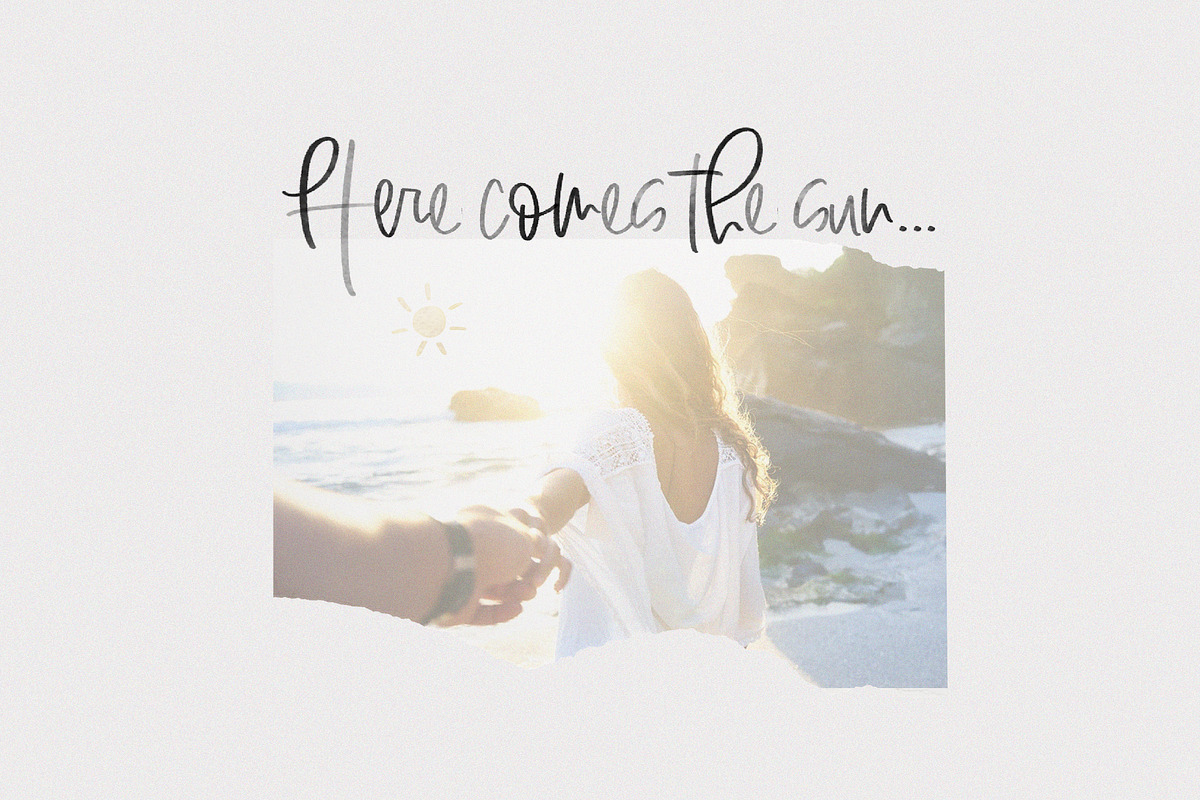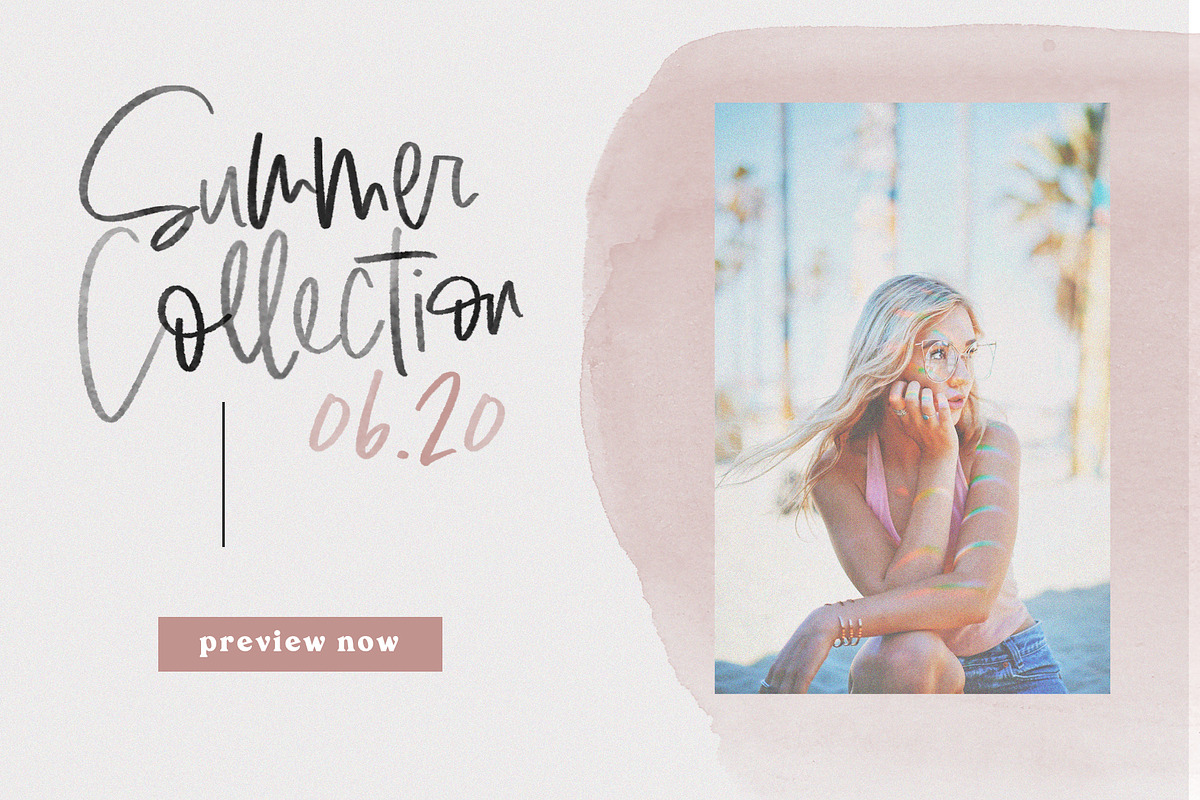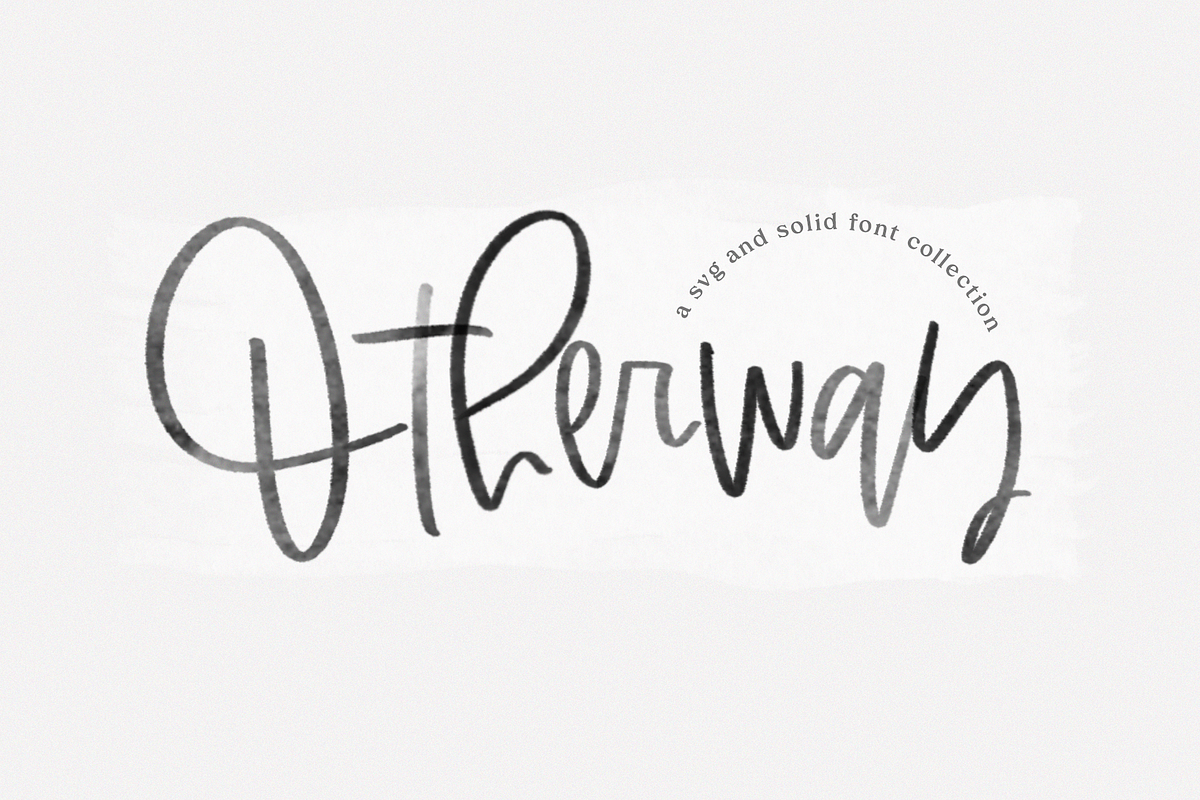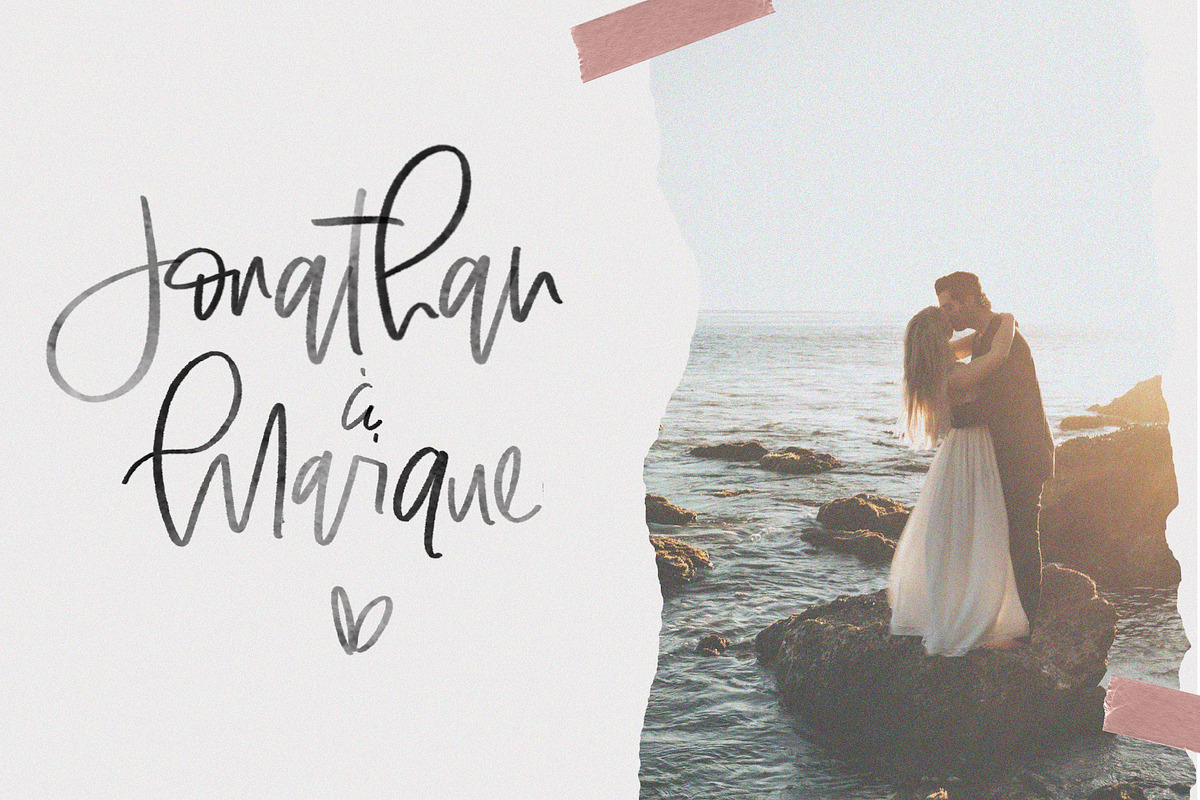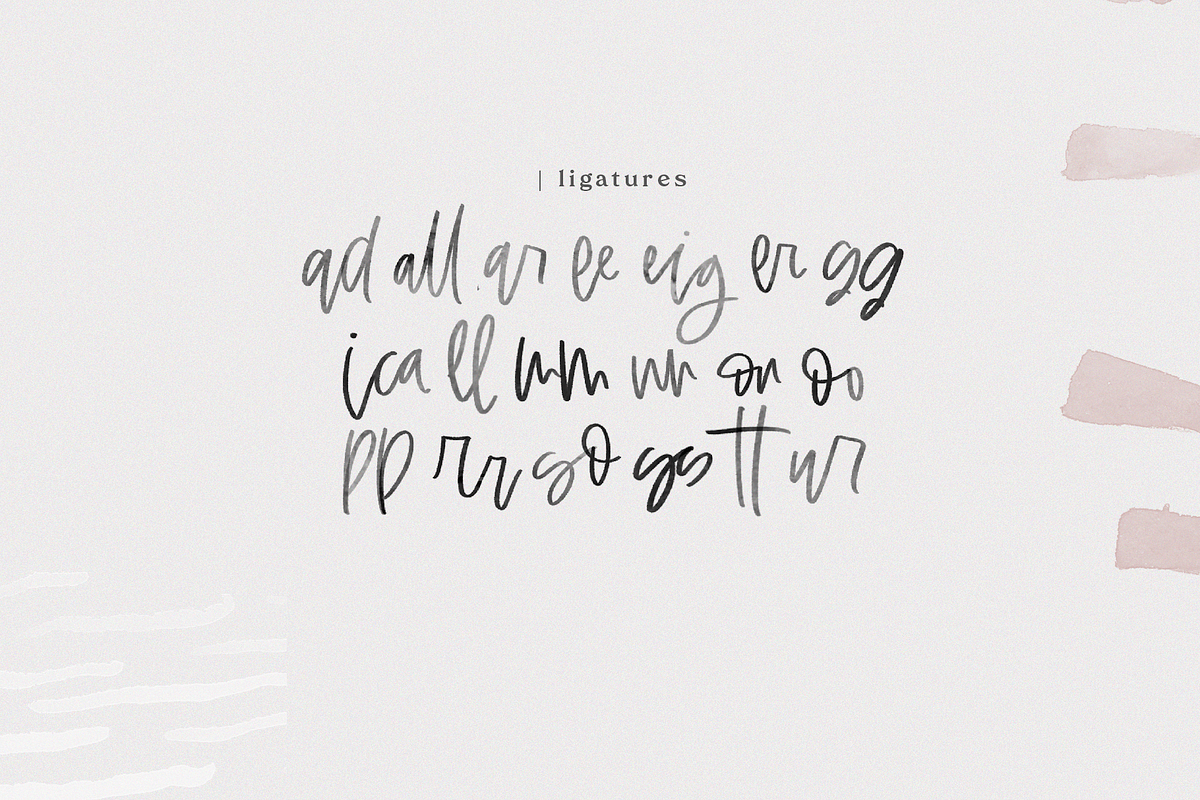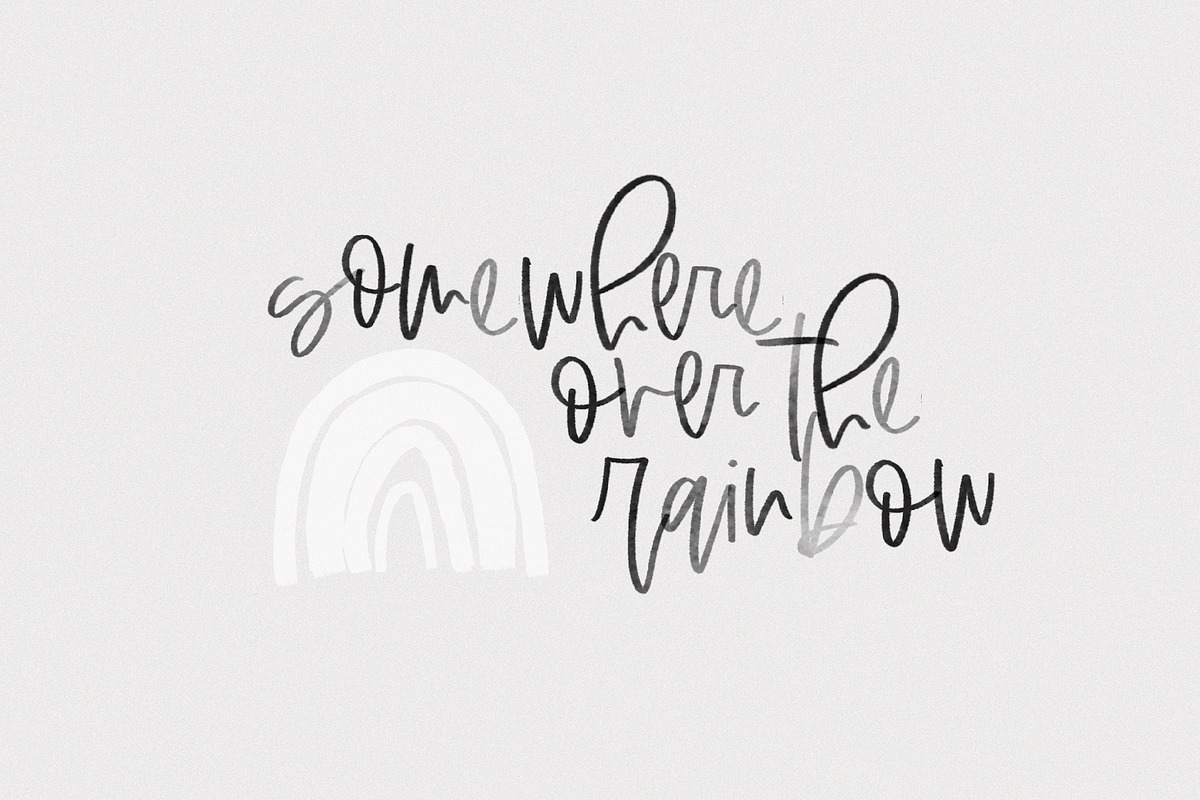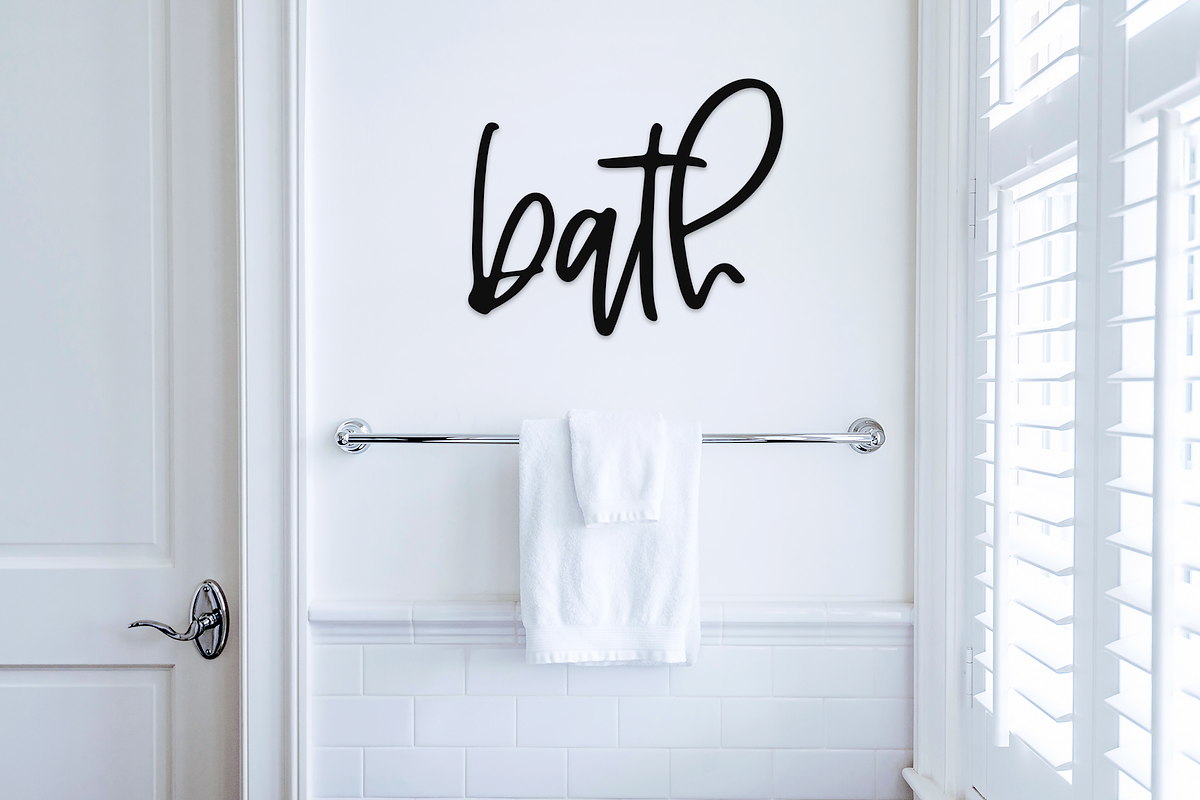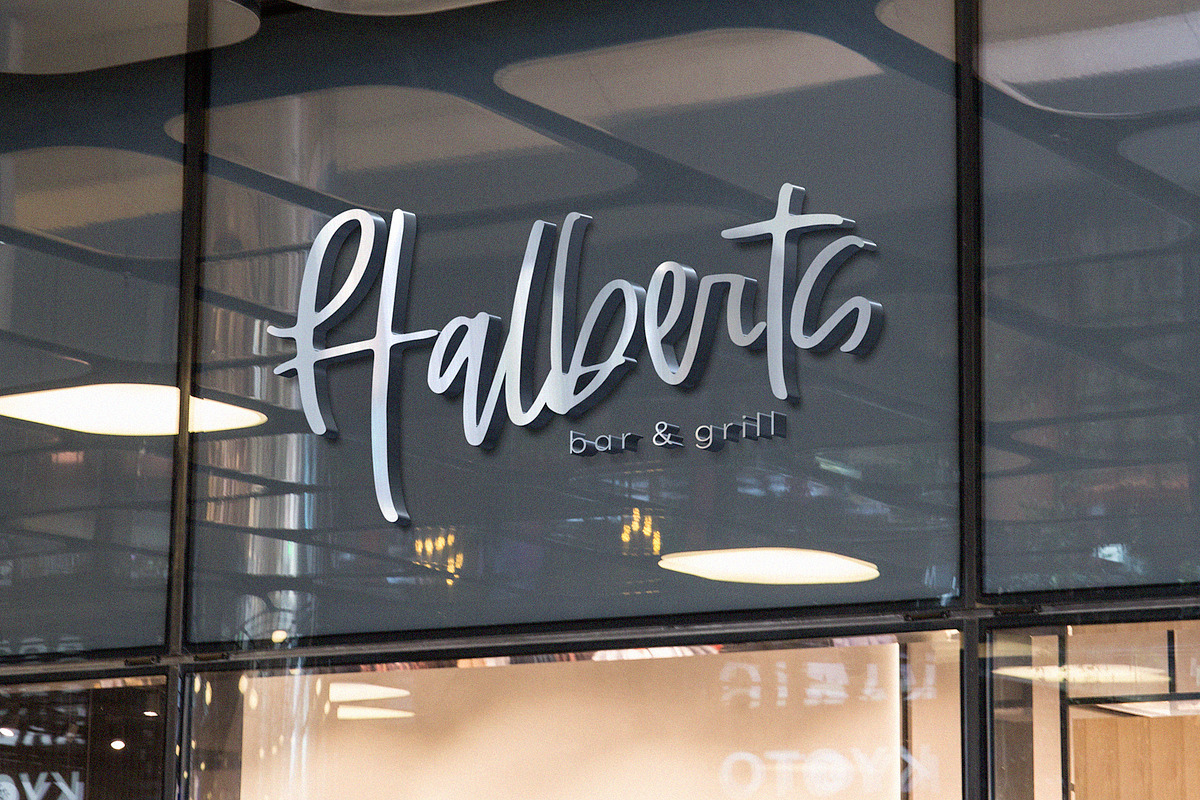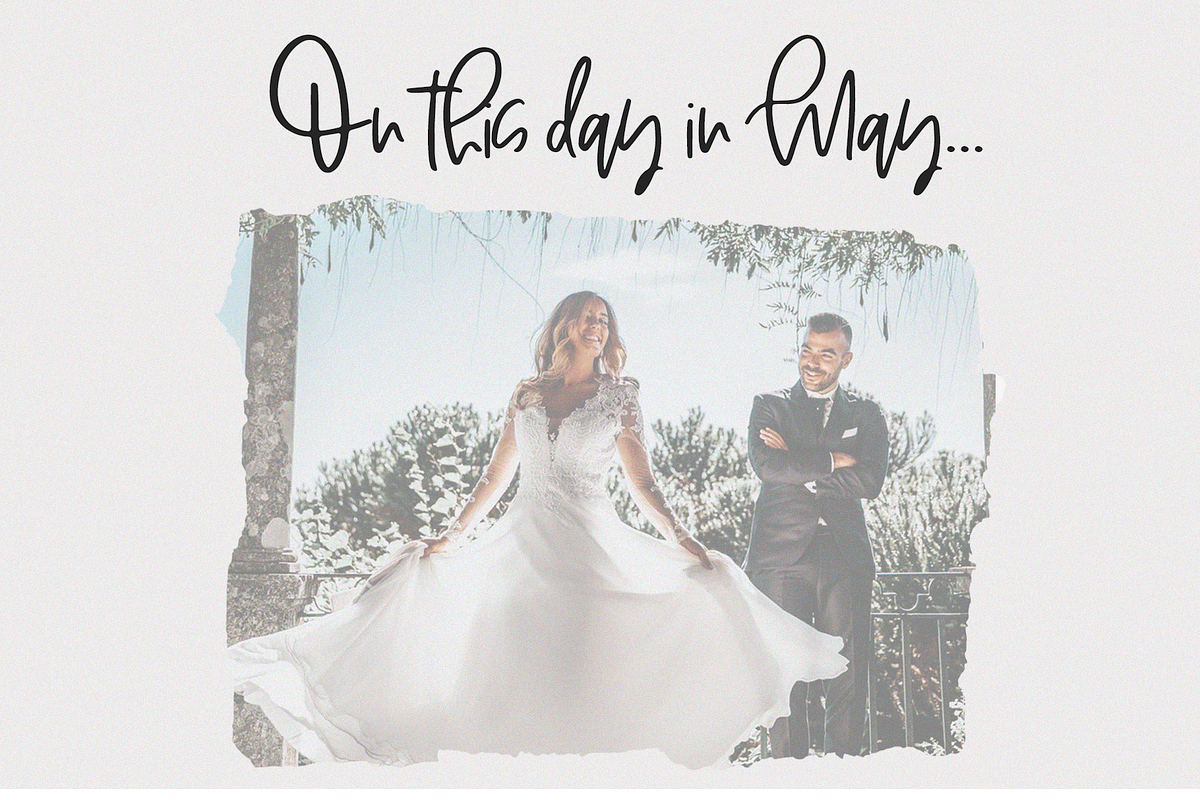
Otherway - SVG & Solid Script Font
Otherway is handwritten font with a quirky, modern calligraphy look!
Each letter has been drawn by hand keeping the untouched texture for the SVG font. If you are unable to access SVG fonts, a solid style is accessible.
Otherway is perfect for modern projects, headings, blogs, logos, brandings, invitations and more!
Accent characters are not included at this time.